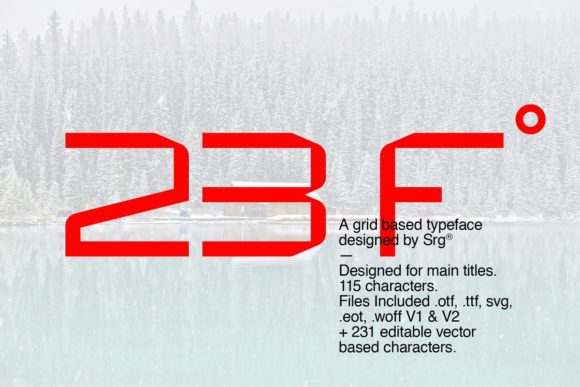
23F Font
Dive into the realm of digital brilliance with 23F Font, a captivating display font that electrifies the world of LED displays. This futuristic creation from Graphics by Srg is a symphony of sharp angles, striking lines, and geometric precision, taking your designs to new heights of modernity.
With 23F Font as your creative companion, you'll embark on a journey of limitless possibilities. Whether crafting eye-catching headlines, mesmerizing logos, or dynamic web interfaces, this font becomes an extension of your imagination, transforming ordinary designs into captivating masterpieces.
Visualize your words dancing across the screen, commanding attention with their bold presence and impeccable style. 23F Font's distinct character adds an instant touch of sophistication, elevating your projects to the forefront of innovation.
Beyond its visual prowess, 23F Font is a font of versatility, adapting effortlessly to a wide spectrum of design endeavors. Its inherent strength lies in its ability to transcend genres, seamlessly blending into various creative contexts.
Unleash your creativity and witness the transformation of your designs as they take on a new life, pulsating with energy and originality. Let 23F Font ignite your imagination and leave an indelible mark on the digital landscape.